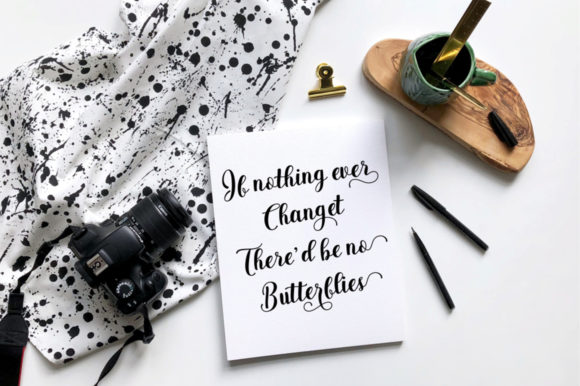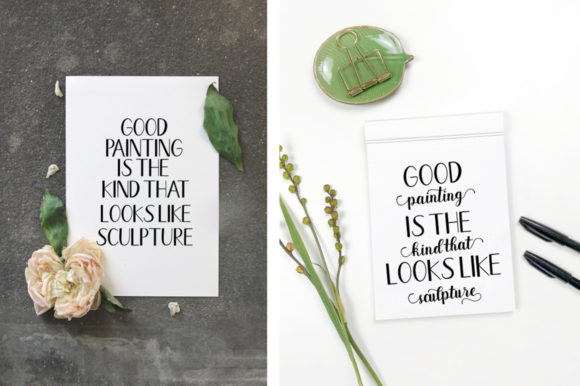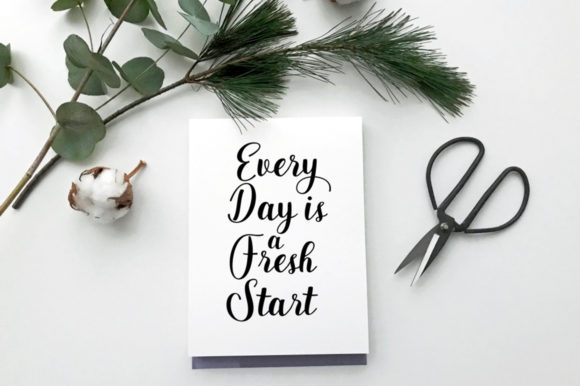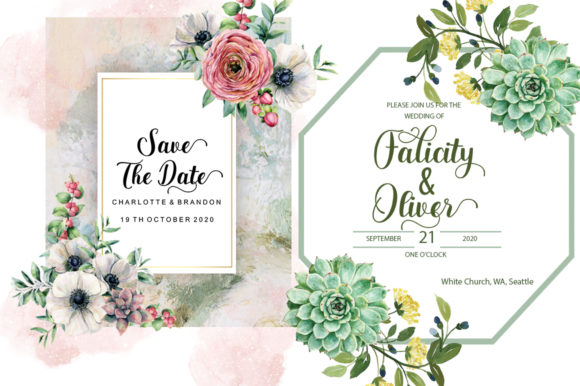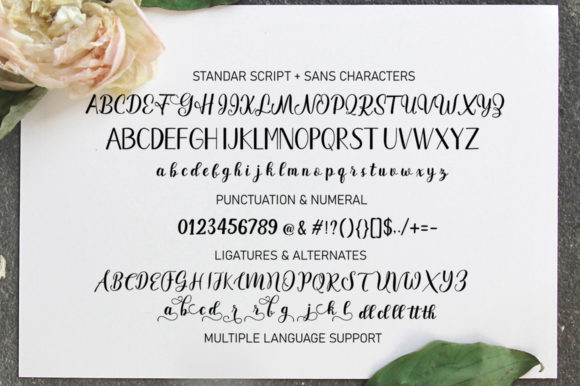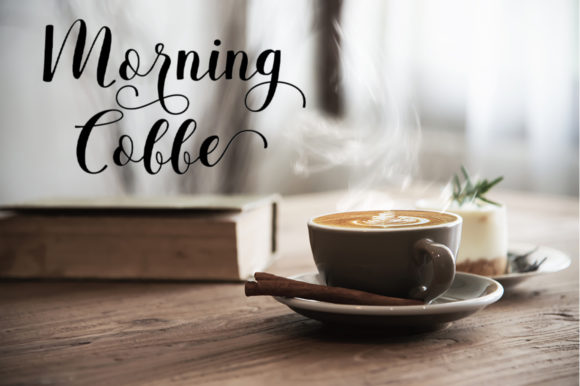
The Perfect Match: Discovering the Charm of Garbera Duo Font
I’ll never forget the time I was working on a project for a client who wanted a design that exuded warmth and friendliness. I had a clear vision of what I wanted to create, but there was one major hurdle: finding the right font. I scoured the internet, tried out dozens of combinations, and still, nothing seemed quite right. That was until I stumbled upon the Garbera Duo font. It was like a match made in heaven! The script characters perfectly complemented the sans serif characters, and I knew I had found the perfect pairing.
A Match Made in Heaven: An Honest Review
So, what makes Garbera Duo so special? Let’s dive into the good stuff! 😊
- ✨ Perfect pairing: The script and sans serif characters work together seamlessly, creating a harmonious and visually appealing combination.
- ✅ Versatility: Garbera Duo can be used for a wide range of design projects, from branding and packaging to social media graphics and more.
- 💫 Elegant and playful: The font combination adds a touch of sophistication and whimsy to any design, making it perfect for projects that need a bit of personality.
Of course, no font is perfect, and Garbera Duo has a few minor quirks:
- 🤔 Limited use in body text: While the font is stunning for headings and titles, it may not be the best choice for longer blocks of text.
- ⚠️ Glyph compatibility: Some glyphs may not work perfectly across all platforms or software, so be sure to test them thoroughly.
A Practical Guide: Using Garbera Duo in Your Designs
The Story Behind Garbera Duo
While the origins of Garbera Duo are shrouded in mystery, it’s clear that the font was designed with love and care. The creator’s passion for typography and design is evident in the font’s elegant lines, playful curves, and perfect pairing of script and sans serif characters.
| Font Name | Garbera Duo Font |
| Author | Stellar Studio |
| What makes Garbera Duo so special? | The perfect pairing of script and sans serif characters creates a harmonious and visually appealing combination. |
| Is Garbera Duo suitable for body text? | While it’s stunning for headings and titles, Garbera Duo may not be the best choice for longer blocks of text. |